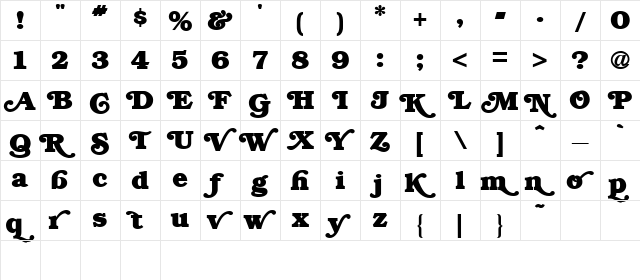
BrookmanSwash Alternates MEG Bold Font Preview
Design Context for BrookmanSwash Alternates MEG Typeface
BrookmanSwash Alternates MEG brings a calligraphic fluidity to the page — its connecting strokes and expressive curves give it an unmistakably human quality. The heavy weight commands attention and anchors typographic hierarchies.
Font Pairing: Combine BrookmanSwash Alternates MEG with a simple geometric sans for maximum contrast — the tension between flowing curves and clean structure is a classic typographic pairing.
Pro Tip: Pair BrookmanSwash Alternates MEG with a clean sans-serif for supporting text. The contrast between fluid script and geometric structure creates an elegant typographic hierarchy.